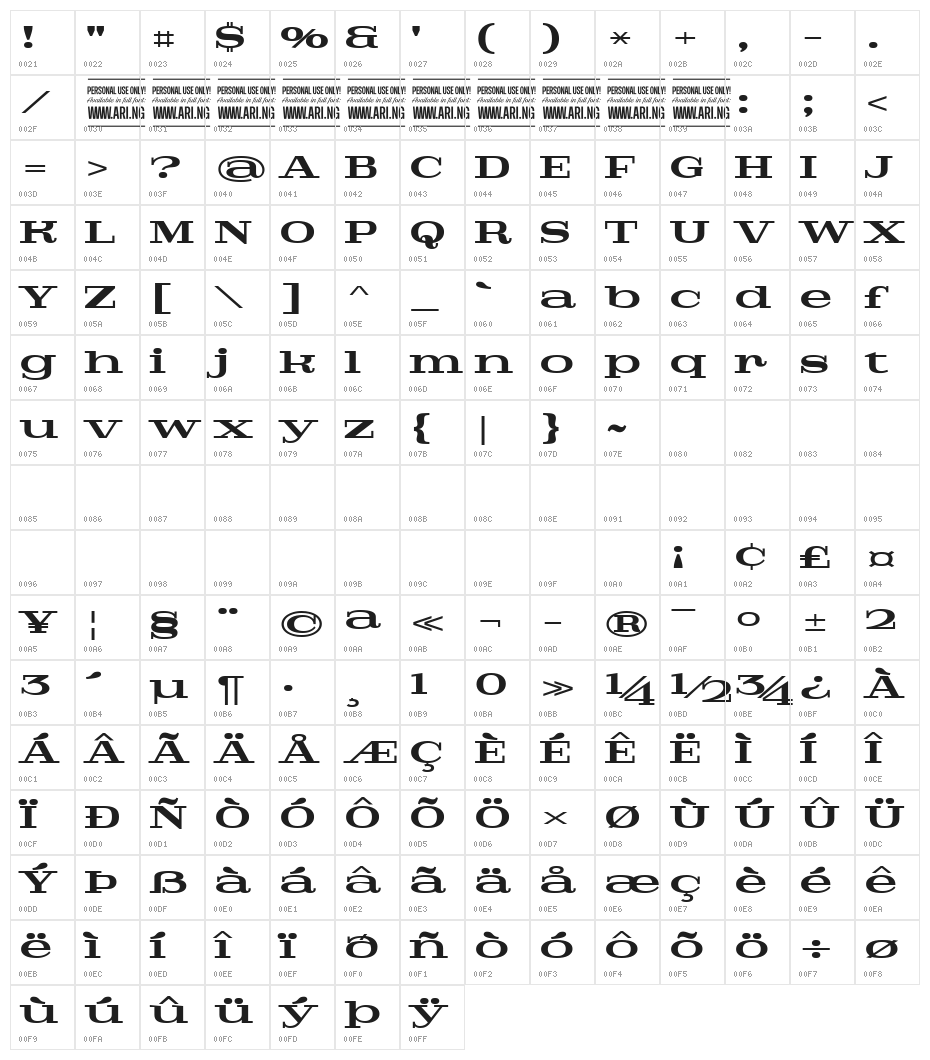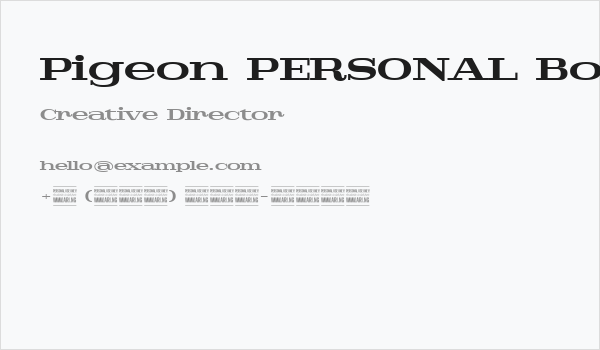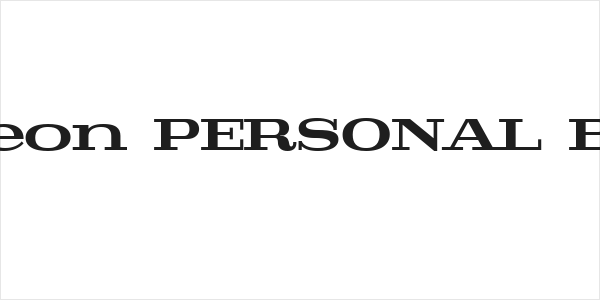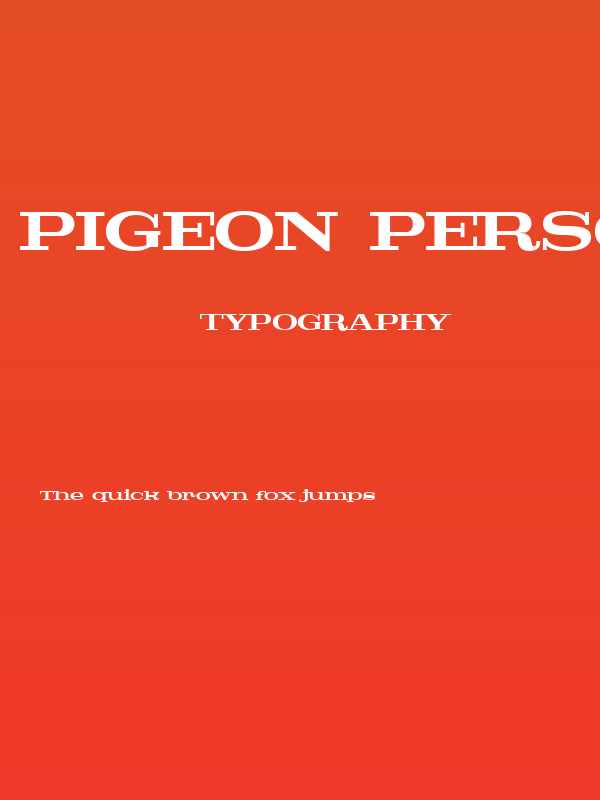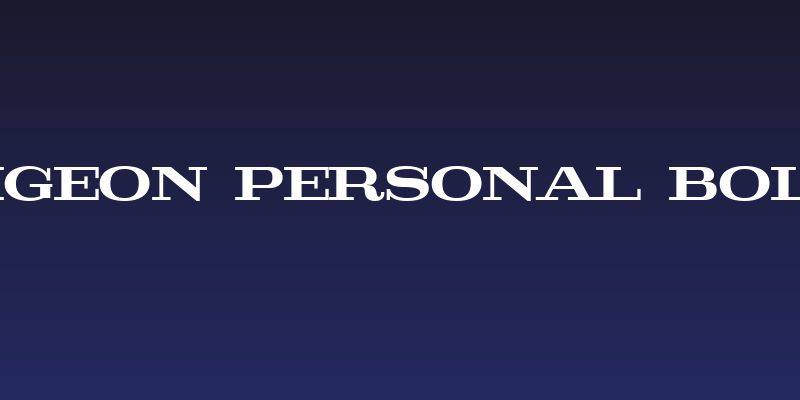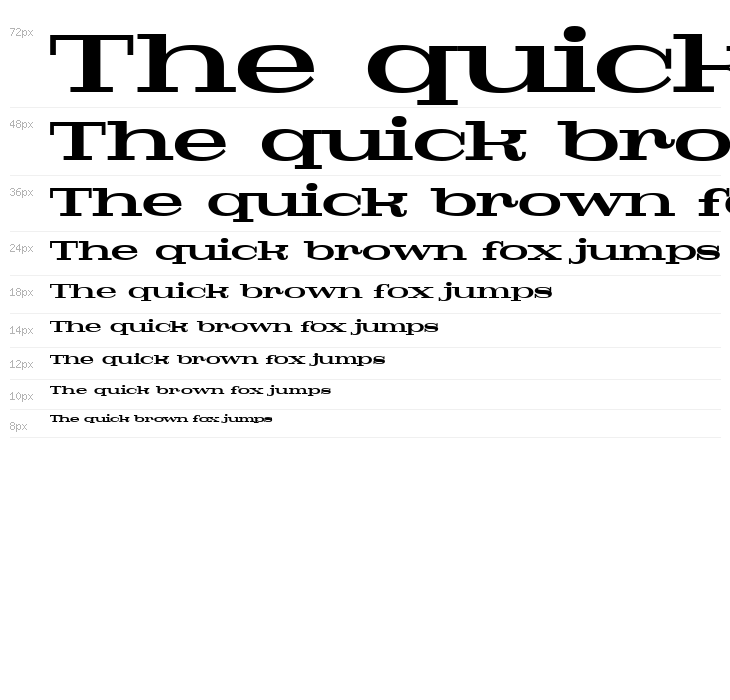
Pigeon PERSONAL Bold Font
Pigeon PERSONAL Bold Description
This font features a bold and striking serif style with a modern twist. The uppercase letters are robust and commanding, while the lowercase letters maintain a consistent and harmonious flow. The serifs are pronounced, adding a touch of elegance and sophistication. The numbers and special characters are designed to complement the overall aesthetic, ensuring versatility across various applications. The font's bold weight and high contrast in stroke thickness make it ideal for impactful designs.
| Proposed Projects | Ideal for branding, editorial design, posters, and headlines where a strong and elegant presence is desired. |